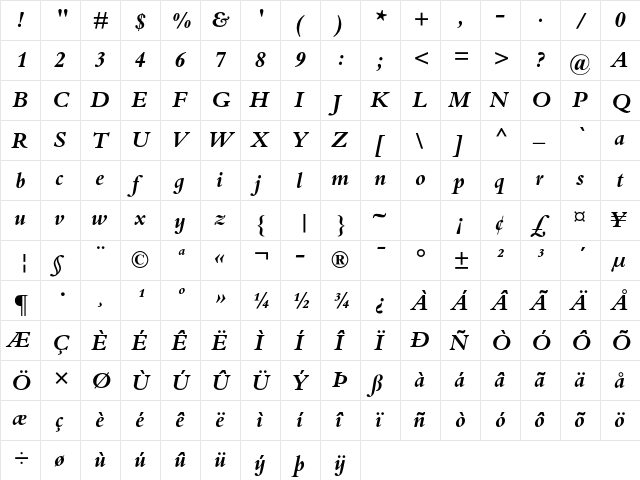
Bembo Infant MT Std Bold It
Design Context for Bembo Infant MT Std Typeface
Bembo Infant MT Std is a composed and adaptable typeface that performs quietly and consistently across a wide range of design contexts. The heavy weight commands attention and anchors typographic hierarchies.